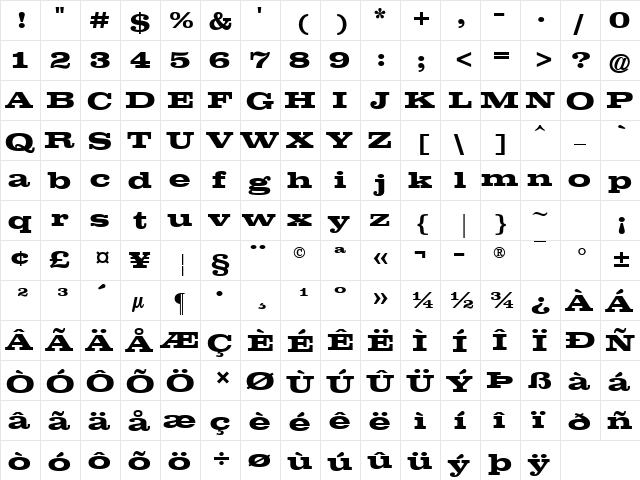
Clarendon Extended Bold
Design Context for Clarendon Extended Typeface
Clarendon Extended features prominent, blocky serifs that give it a confident, grounded presence — equally at home in editorial settings and bold branding work. The heavy weight commands attention and anchors typographic hierarchies.
Works well in editorial design, news publishing, impactful branding, and poster typography.
Pro Tip: Try Clarendon Extended set tight in headlines for a classic editorial feel. Its slab serifs create strong horizontal rhythm that anchors a page layout.